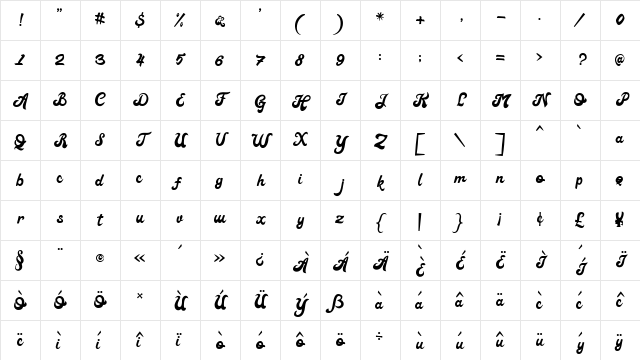
Retrovert wears its vintage influences proudly, with letterforms that recall mid-century signage, classic packaging, and nostalgia-driven design.
Font Pairing: Combine Retrovert with a simple slab or neutral sans - period-accurate companions reinforce the vintage feel without competing for attention.
Pro Tip: Lean into Retrovert's period character by pairing it with aged paper textures, muted colour palettes, and vintage illustration styles.